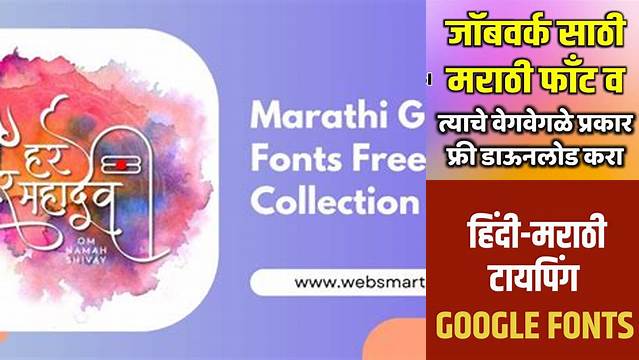
Download Free Google Marathi Fonts: A Comprehensive Guide
Introduction: Exploring the World of Google Marathi Fonts
Hey guys! Are you on the hunt for some amazing Google Marathi fonts? Look no further! This comprehensive guide will walk you through everything you need to know about finding, downloading, and using these fantastic fonts for free. Whether you're a seasoned designer, a student working on a project, or simply someone who appreciates the beauty of the Marathi script, this article is for you. Marathi, an Indo-Aryan language primarily spoken in the state of Maharashtra, India, boasts a rich literary and cultural heritage. The visual representation of this language, through its script, is just as significant. A well-chosen font can breathe life into your text, making it not only readable but also aesthetically pleasing. In this digital age, the availability of high-quality fonts is crucial for effective communication and design. Google Fonts has emerged as a leading platform, offering a vast collection of open-source fonts, including a diverse range of Marathi fonts. This means you can access these fonts without any licensing fees, making them perfect for both personal and commercial use. The beauty of Google Marathi fonts lies in their versatility. From elegant serif fonts that exude tradition to modern sans-serif fonts that convey a contemporary feel, there's a font to suit every project. Think about creating stunning wedding invitations, designing eye-catching posters, or even developing a user-friendly website β the possibilities are endless! But with so many options available, where do you even begin? Don't worry, we've got you covered. We'll delve into the world of Google Fonts, highlighting some of the most popular and visually appealing Marathi fonts. We'll also provide step-by-step instructions on how to download and install these fonts on your computer, ensuring a smooth and hassle-free experience. So, let's embark on this exciting journey of exploring the world of Google Marathi fonts and discover the perfect typeface for your next creative endeavor!
Why Use Google Fonts for Marathi? The Advantages
So, why should you specifically opt for Google Fonts when looking for Marathi fonts? Well, there are a plethora of compelling reasons that make Google Fonts the go-to choice for designers and users alike. Let's break down the key advantages: First and foremost, and perhaps the most attractive feature, is the cost β or rather, the lack thereof! Google Fonts are completely free to use. Yes, you heard that right! You can download and use these fonts for personal and commercial projects without shelling out a single penny. This is a game-changer, especially for students, freelancers, and small businesses who are often working with limited budgets. Imagine having access to a vast library of high-quality fonts without the burden of hefty licensing fees. It opens up a world of creative possibilities without straining your financial resources. Beyond the financial aspect, Google Fonts boasts an impressive library of fonts. The collection is constantly growing, with new fonts being added regularly. This means you have a wide variety of styles and weights to choose from, ensuring you can find the perfect font to match the tone and aesthetic of your project. Whether you're looking for a traditional serif font for a formal document or a modern sans-serif font for a website, Google Fonts has something for everyone. Furthermore, Google Fonts are incredibly easy to use. The platform is user-friendly and intuitive, making it simple to browse, preview, and download fonts. You can filter fonts based on various criteria, such as language, style, and weight, allowing you to narrow down your search and find the perfect font quickly. The download process is straightforward, and the fonts are compatible with a wide range of software and operating systems. Another significant advantage of using Google Fonts is their seamless integration with web design. Google Fonts are optimized for web use, ensuring that your website text renders beautifully across different browsers and devices. You can easily embed Google Fonts into your website's code, allowing you to use custom fonts without sacrificing website performance. This is crucial for creating a visually appealing and professional online presence. Finally, Google Fonts are open-source. This means that the fonts are not only free to use but also free to modify and distribute. This fosters a collaborative environment where designers can contribute to the development of new fonts and improve existing ones. The open-source nature of Google Fonts ensures that the platform remains dynamic and responsive to the needs of the design community. In conclusion, Google Fonts offer a compelling combination of cost-effectiveness, variety, ease of use, web optimization, and open-source accessibility, making them an ideal choice for anyone looking for high-quality Marathi fonts.
Top Google Marathi Fonts: A Curated Selection
Alright, guys, let's dive into the exciting part β exploring some of the top Google Marathi fonts that you can use to elevate your designs! With so many fantastic options available, it can be a bit overwhelming to choose the right one. So, we've curated a selection of some of the most popular and versatile fonts, categorized by their style and application, to help you narrow down your choices. First up, we have the classic serif fonts. Serif fonts are characterized by the small decorative strokes (serifs) at the ends of the letters. These fonts often convey a sense of tradition, elegance, and formality, making them ideal for projects that require a touch of sophistication. One standout serif font for Marathi is Poppins. While technically a Devanagari and Latin script font, Poppins offers excellent support for Marathi characters and provides a clean, modern feel. Its geometric design and multiple weights make it versatile for various applications, from body text to headlines. Another noteworthy serif font is Baloo Bhai 2. This font exudes warmth and playfulness with its rounded terminals and friendly appearance. It's an excellent choice for children's books, educational materials, and designs that aim to create a welcoming and approachable vibe. Moving on to sans-serif fonts, these typefaces are characterized by their clean, minimalist design, lacking the serifs found in serif fonts. Sans-serif fonts often convey a sense of modernity, clarity, and efficiency, making them perfect for digital interfaces, websites, and contemporary designs. Kalam is a popular choice for its handwritten feel, offering a friendly and informal touch. It works well for adding a personal touch to your designs, such as invitations, greeting cards, or social media posts. Mogra is another excellent sans-serif option with a bold and assertive personality. Its strong geometric shapes make it suitable for headlines, posters, and branding materials that demand attention. Itβs particularly effective when you need to make a statement! Now, let's talk about display fonts. Display fonts are designed to be used at larger sizes, such as in headlines, titles, and logos. These fonts often feature unique and eye-catching designs that can add a distinctive flair to your projects. Jaldi is a beautiful display font that combines traditional Marathi letterforms with a modern aesthetic. Its elegant curves and balanced proportions make it a great choice for branding, packaging, and editorial design. Arima Madurai is another fantastic display font that offers a touch of elegance and sophistication. Its calligraphic influences and flowing lines make it suitable for wedding invitations, certificates, and other formal occasions. When selecting a font, it's crucial to consider the overall tone and purpose of your project. A formal event invitation might call for a serif font like Poppins, while a playful children's book might benefit from the friendly charm of Baloo Bhai 2. A modern website might thrive with the clean lines of Kalam or Mogra. Experimenting with different fonts and combinations is key to finding the perfect visual voice for your message. Remember, the right font can make all the difference in conveying your message effectively and creating a lasting impression. So, take your time, explore the options, and discover the Google Marathi fonts that resonate with your creative vision.
Tips for Using Marathi Fonts Effectively: Design Best Practices
So, you've downloaded and installed your awesome new Google Marathi fonts β fantastic! But having the right tools is only half the battle. To truly make your designs shine, you need to know how to use these fonts effectively. Let's dive into some design best practices that will help you create visually appealing and impactful Marathi text. First and foremost, readability is king. No matter how beautiful a font is, if it's difficult to read, it's not serving its purpose. When choosing a Marathi font, consider the context in which it will be used. For body text, opt for fonts with clean, simple letterforms and adequate spacing. Avoid overly decorative or stylized fonts that can strain the eyes, especially in large blocks of text. A good rule of thumb is to test the font at different sizes and see how it looks both on screen and in print. Is the text legible? Are the letterforms distinct and clear? If not, you might want to consider a different font or adjust the font size and spacing. Another crucial aspect of effective font usage is contrast. Contrast refers to the visual difference between different elements in your design, such as the text and the background. Sufficient contrast is essential for readability. If your text is too similar in color or tone to the background, it will be difficult to read. Conversely, too much contrast can be jarring and uncomfortable to the eyes. Aim for a balanced level of contrast that makes the text stand out without being overwhelming. Consider the background color or image when selecting a font color. Dark text on a light background is generally the easiest to read, but light text on a dark background can also work well if the contrast is sufficient. Avoid using colors that clash or make the text appear blurry. Font pairing is another important skill to master. Mixing different fonts can add visual interest and hierarchy to your designs, but it's crucial to do it thoughtfully. The goal is to create a harmonious combination that enhances the overall design, rather than creating a visual mess. A general guideline is to pair a serif font with a sans-serif font. This creates a contrast in style that can be visually appealing. For example, you might pair a classic serif font like Poppins for headings with a clean sans-serif font like Kalam for body text. However, there are no hard and fast rules, and experimenting with different combinations is key to finding what works best for your specific project. Just make sure that the fonts you choose complement each other and create a cohesive look and feel. Hierarchy is another important concept in typography. Hierarchy refers to the arrangement of text elements in a way that guides the reader's eye and emphasizes key information. You can create hierarchy using different font sizes, weights, and styles. For example, headings should be larger and bolder than body text, and important keywords can be highlighted using italics or boldface. Effective use of hierarchy helps readers quickly grasp the main points of your message and navigate the content easily. Finally, pay attention to kerning, tracking, and leading. Kerning refers to the spacing between individual letters, tracking refers to the overall spacing between all the letters in a word or phrase, and leading refers to the spacing between lines of text. These subtle adjustments can have a significant impact on the readability and visual appeal of your text. Adjusting the kerning can improve the visual balance of a word, while adjusting the tracking can make text appear more open or condensed. Adjusting the leading can make text easier to read by preventing lines from feeling too cramped or too sparse. By paying attention to these details, you can take your typography from good to great. In conclusion, using Marathi fonts effectively is about more than just choosing a pretty typeface. It's about considering readability, contrast, font pairing, hierarchy, and spacing to create designs that are both visually appealing and communicate your message clearly. So, experiment, practice, and let your creativity shine!
Conclusion: Unleash Your Creativity with Google Marathi Fonts
Alright guys, we've reached the end of our journey into the world of Google Marathi fonts! We've covered everything from the advantages of using Google Fonts to downloading and installing them, and even explored some design best practices for using them effectively. Hopefully, you're now feeling confident and inspired to unleash your creativity with these fantastic resources. The availability of free, high-quality fonts like those offered by Google Fonts has truly democratized design. No longer are beautiful typefaces the exclusive domain of professional designers or large corporations. Anyone with a computer and an internet connection can access a vast library of fonts and create stunning visual communications. Marathi, with its rich cultural heritage and expressive script, deserves to be showcased in all its glory. By using Google Marathi fonts, you can contribute to the preservation and promotion of this beautiful language and culture. Whether you're designing a website, creating marketing materials, or simply crafting a personal message, the right font can make all the difference. So, don't be afraid to experiment with different fonts and styles. Explore the diverse range of options available and find the typefaces that resonate with your personal aesthetic and the message you want to convey. Remember, design is a process of continuous learning and refinement. The more you practice and experiment, the better you'll become at choosing and using fonts effectively. Pay attention to the world around you, observe how fonts are used in different contexts, and gather inspiration from the work of other designers. The possibilities are endless when it comes to typography. With Google Marathi fonts at your fingertips, you have the power to create visually compelling and impactful designs that celebrate the beauty of the Marathi language. So go ahead, download some fonts, and start creating! Let your imagination run wild, and see what you can achieve. And most importantly, have fun! Design should be an enjoyable and rewarding process, so embrace the challenge and let your creativity shine. We hope this guide has been helpful and informative. If you have any questions or comments, feel free to leave them in the comments section below. We're always happy to hear from you! Now go out there and make some beautiful Marathi designs!